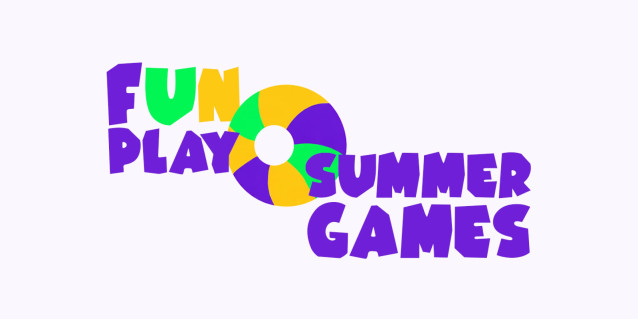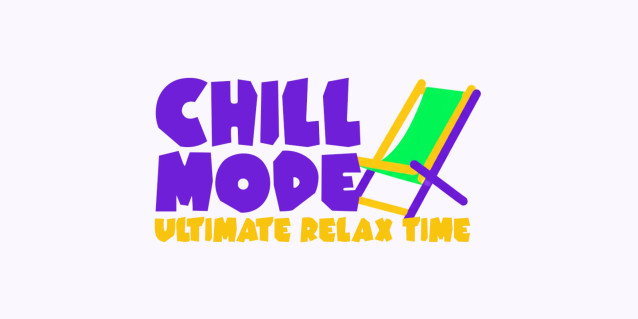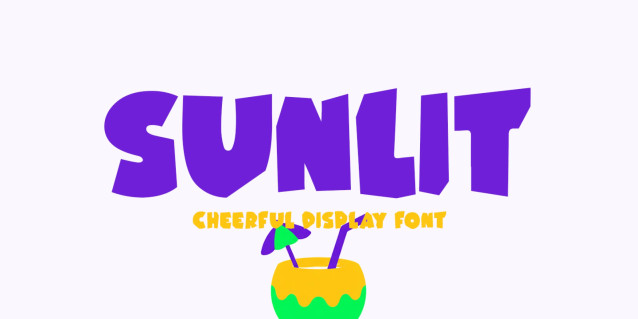
Sunlit Font
Sunlit is a vibrant display font designed to capture the carefree spirit of sunny days and tropical adventures. With its bold shapes and playful character, it adds a lively and eye-catching touch to logos, branding, packaging, apparel, posters, and digital content. Ideal for projects that call for a warm, fun, and cheerful visual style.